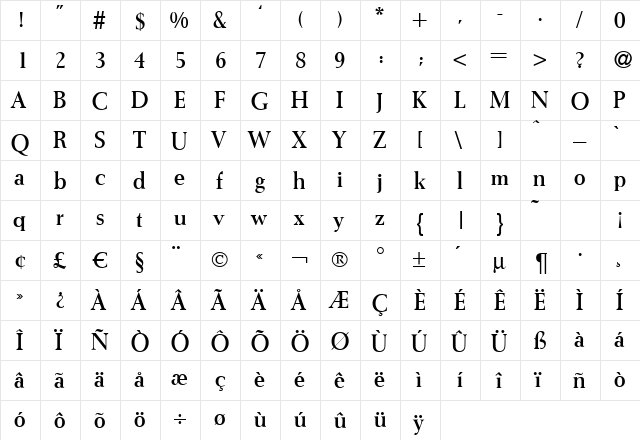
I772-Roman Bold
Design Context for I772-Roman Typeface
I772-Roman takes a measured approach to typography — its balanced proportions and neutral character make it a reliable workhorse for both digital and print work. The heavy weight commands attention and anchors typographic hierarchies.